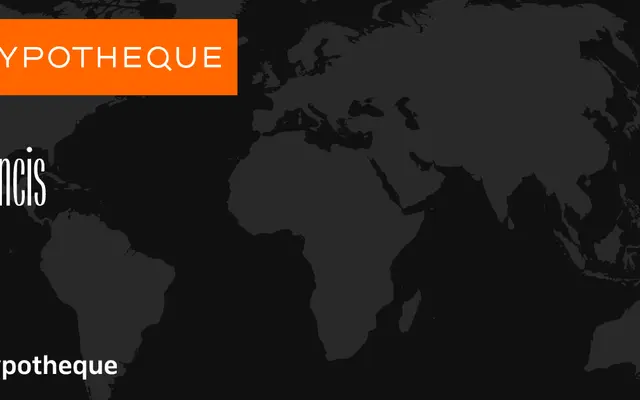
Francis specimen from Typotheque
A humanist sans-serif system from Typotheque with five weights, matching italics and a gradient display variant in four directional styles.
Francis is a humanist sans-serif organised into five weights from Light to Heavy, each with a corresponding italic. The family extends into Francis Gradient, which offers four optical treatments — Left, Right, Inside and Outside — for expressive display use. City-named specimen styles from Amsterdam to Jerusalem give a sense of the intended international reach of the Latin character set.
Francis presents as a humanist sans-serif with a gradient display variant, suggesting optical refinement and a broad typographic system. The warmth of its naming conventions and the range of weights support a humanist classification.